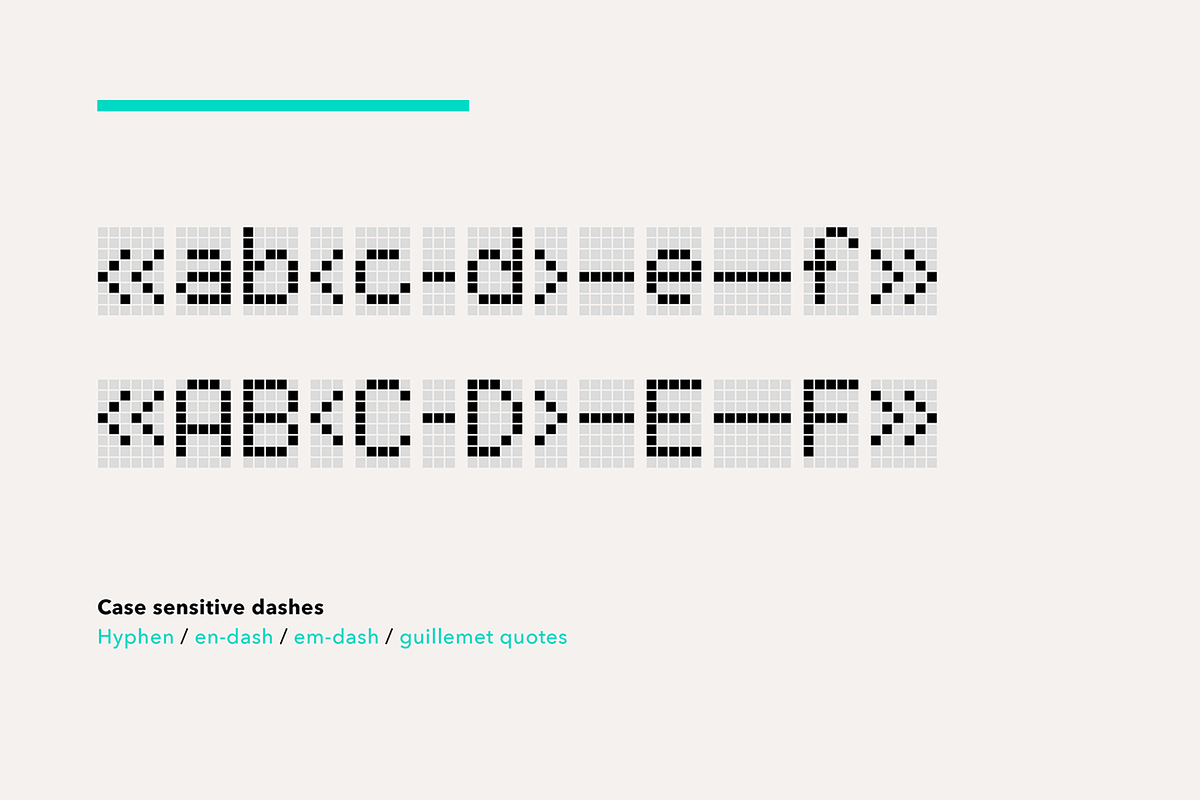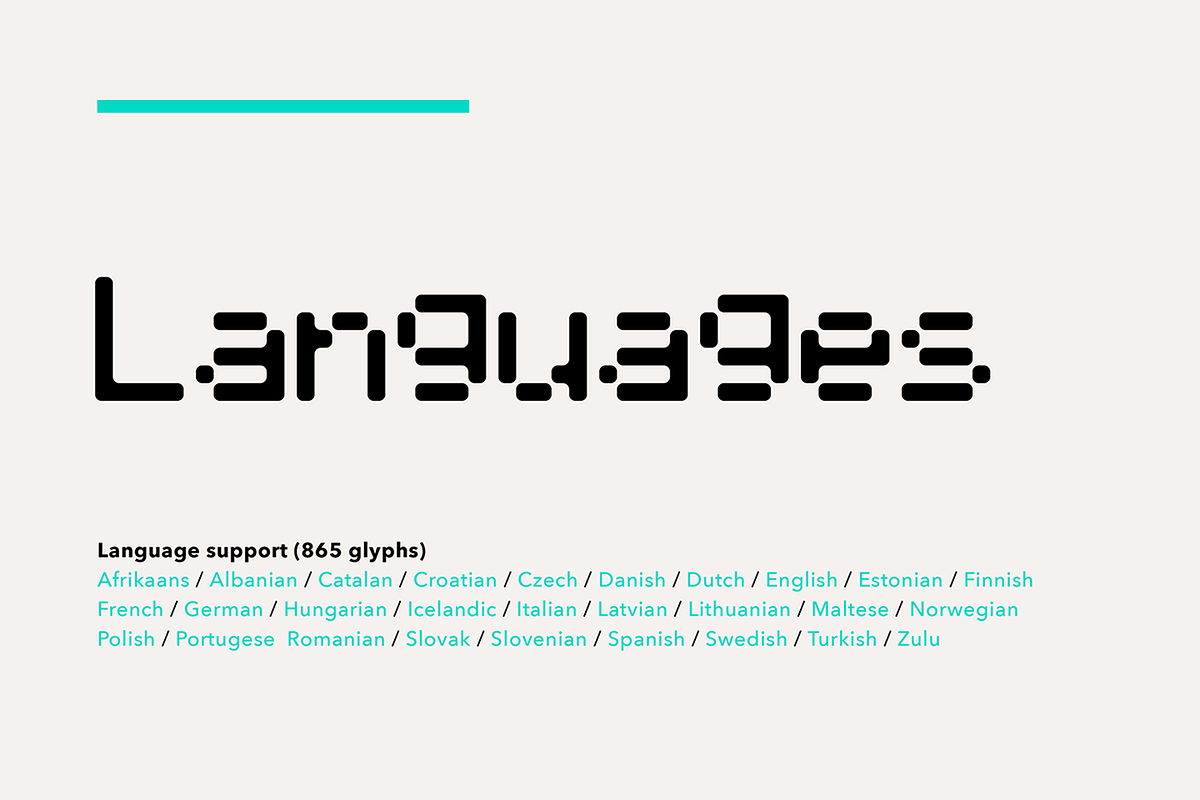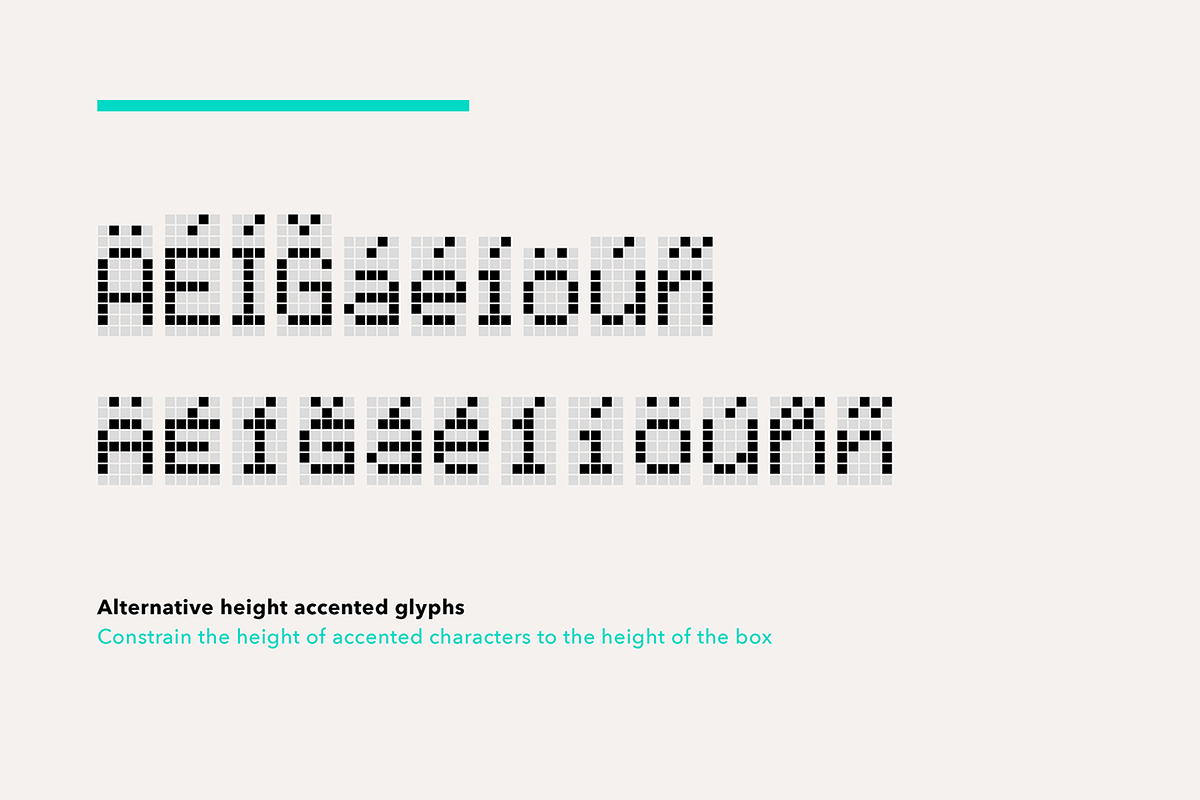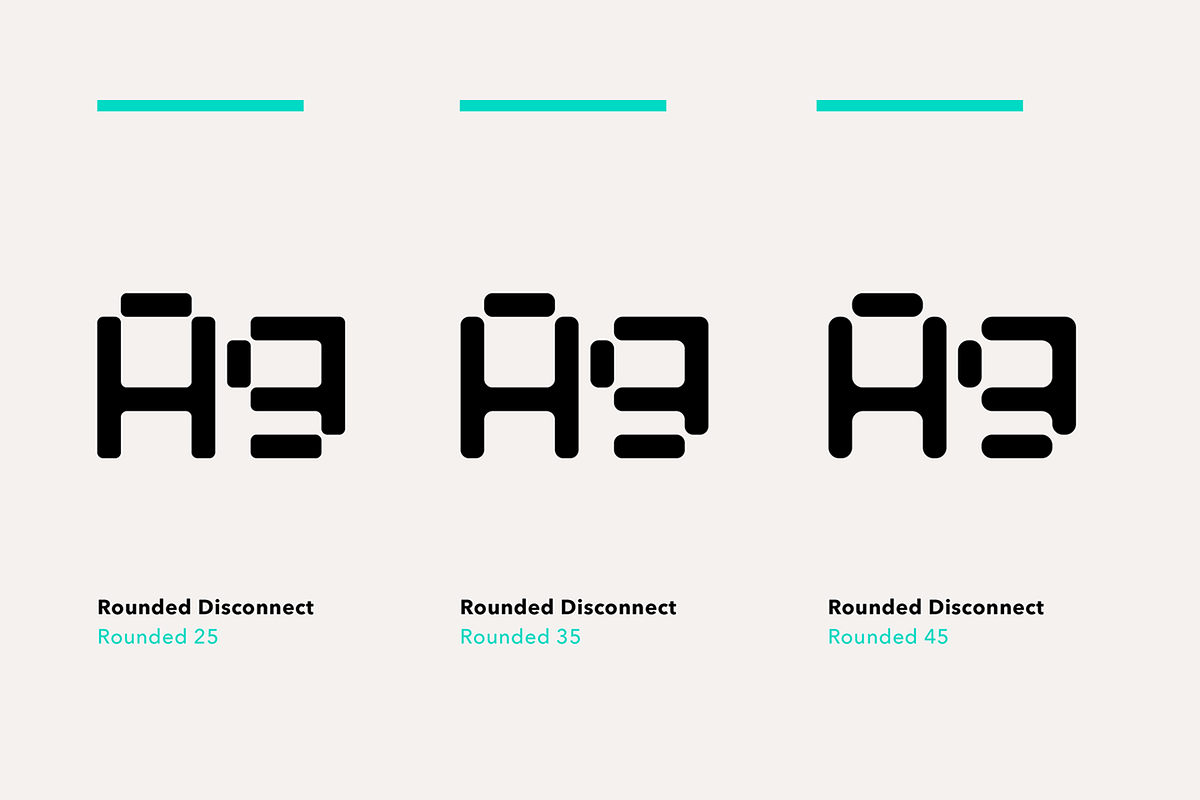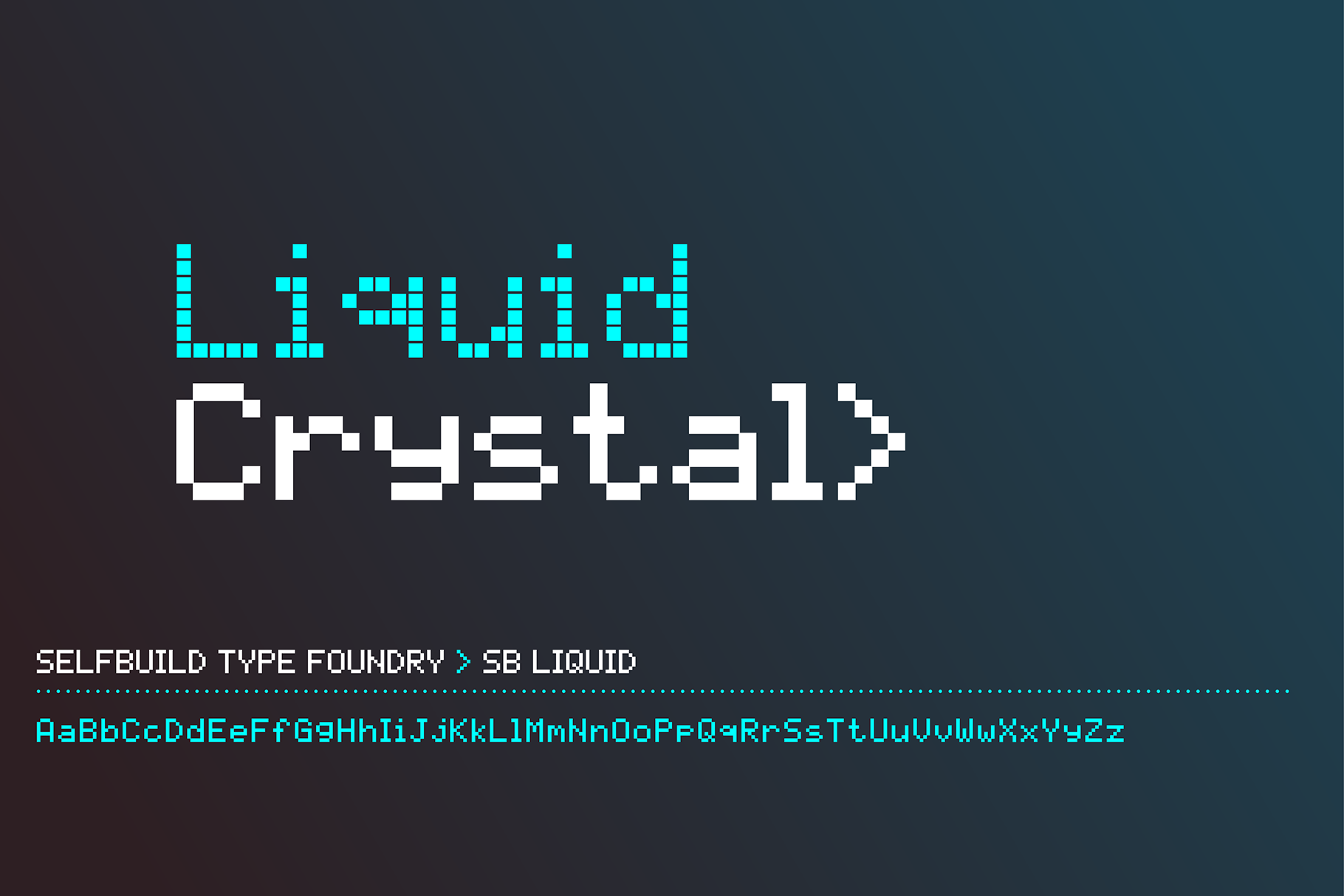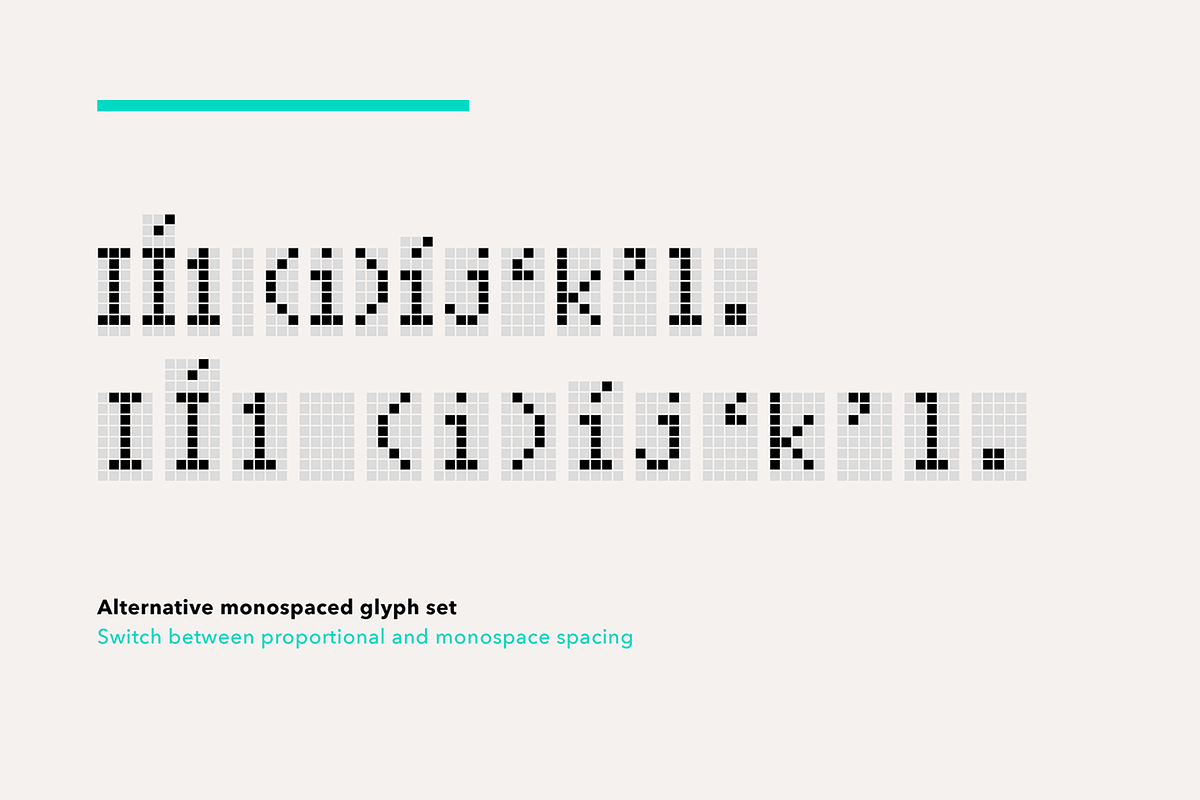
Liquid LCD Pixel font (28 styles)
SB Liquid is a digitisation of the 5x8 pixel typeface used on many Liquid Crystal Display panels, including the ubiquitous Hitachi HD44780.
The font allows you to substitute the original monospaced characters for narrow or full width versions. It also contains full height alternative characters for accented characters.
- 28x OpenType fonts designed for layering.
- Includes Background styles for layering.
- Includes an OpenType Stylistic Set to easily switch between monospaced and proportional spacing.
- Liquid Solid is optimised for use as a pixel font at 10px and multiples of 10px.
- Each font contains 865 glyphs.
- Supports 37 languages.
SB Liquid was originally referenced from the display of a Kawai K-1 synthesizer, a musical instrument that used an 16x2 character LCD strip to display information about the sound to the musician playing it. The original intention was to use it in instruction manuals for an early mobile phone company, during the era when mobile phones used standard digital displays and needed an instruction manual, but it was so common in the world of electronic musical instruments that it also fitted well for projects based around electronic music.
Initially only two styles were produced, Open and Solid, aimed at allowing the designer to emulate the look of the original LCD screens, but it also found a use as text pixelfont during the early days of web graphics, thanks to the high legibility of the letterforms. Now SB Liquid has been expanded into a full family of 28 styles to give designers more options when using the typeface. To this day the original styles still have a secondary use in the electronics manufacturing world, where this kind of display is still in use, boosted by the emergence of cheap, accessible computing devices.